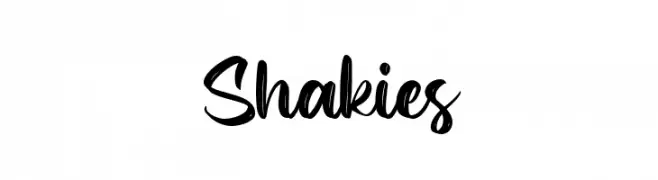
A playful, bold, hand-drawn font with thick, rounded strokes and a lively appearance.
A bold, angular italic font with a dynamic and energetic style.
A bold, distressed font with a grunge texture and rugged appearance.
A bold, textured font with a distressed, grunge style.
A bold, textured font with distressed uppercase letters and classic serif numbers.
A bold, geometric sans-serif font with a modern, condensed style.
A dynamic, brush-style font with expressive, hand-drawn strokes.
A bold, decorative font with an industrial, mechanical aesthetic.
A slab serif font with a handcrafted, slightly irregular style.
A bold, brush-style handwritten font with dynamic, fluid strokes.